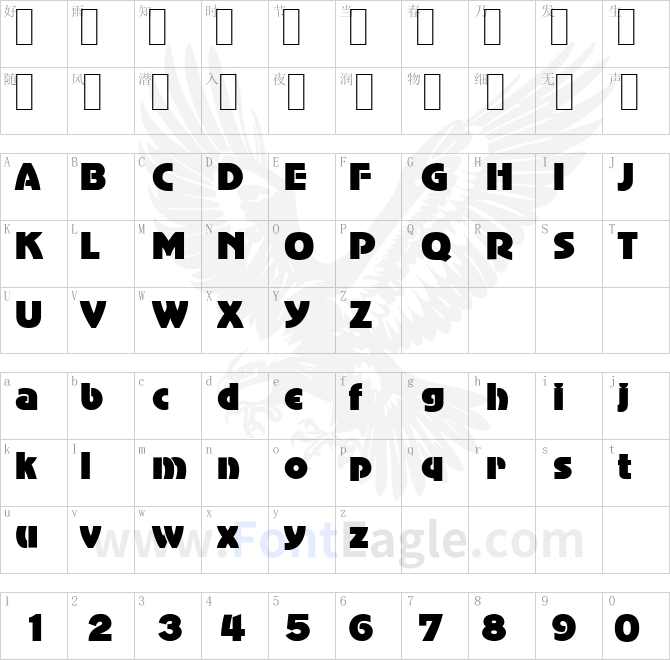
- Font name:AdvertisersGothic
- Font Subfamily ID:SoftMaker Software GmbH AdvertisersGothic-Regular
- Font Full Name:AdvertisersGothic-Regular
- Postscript:AdvertisersGothic